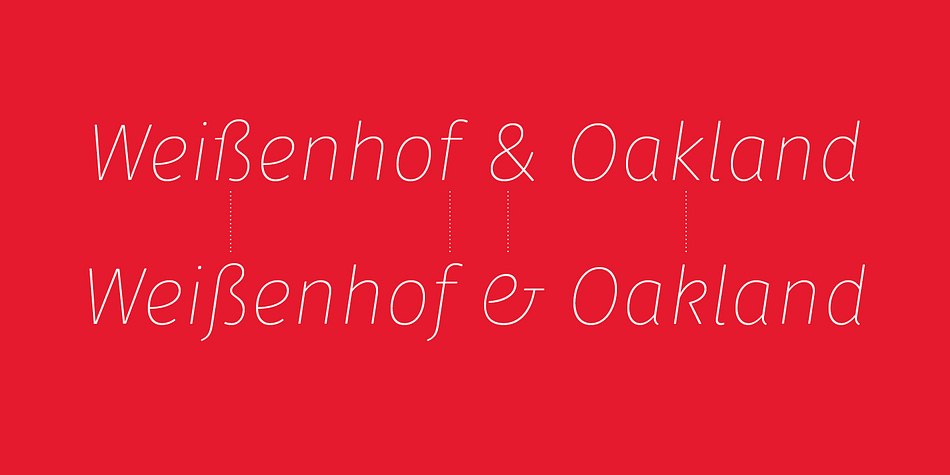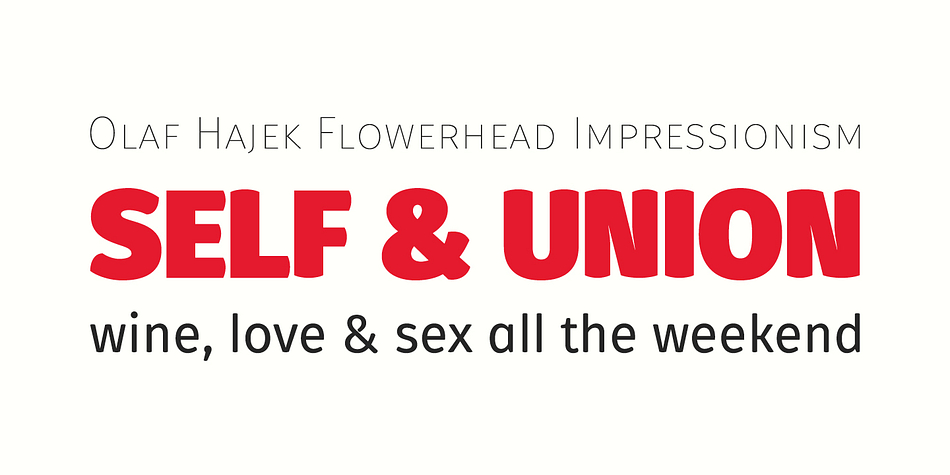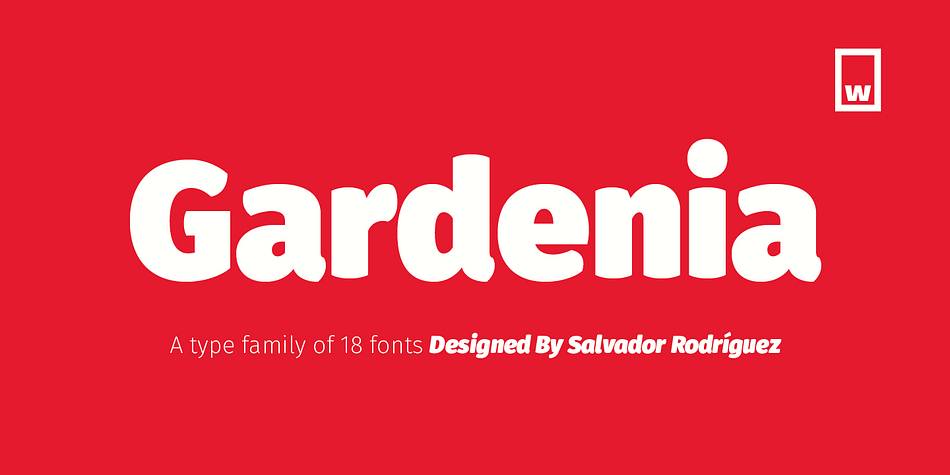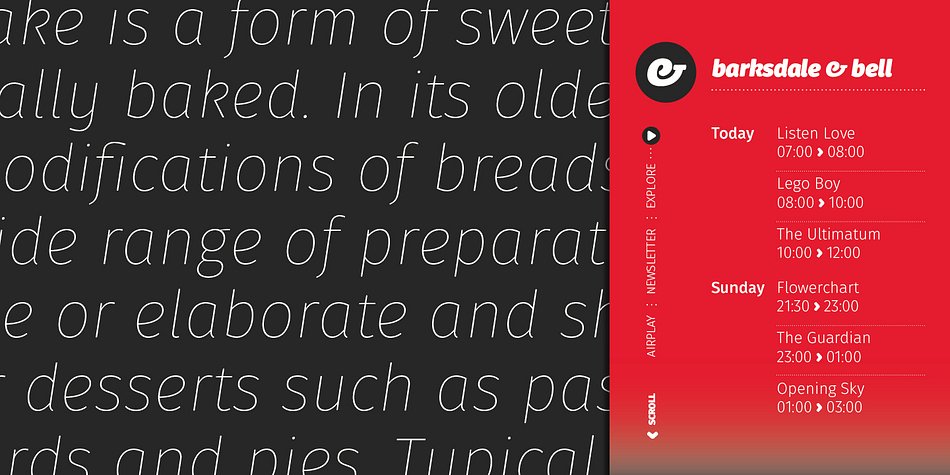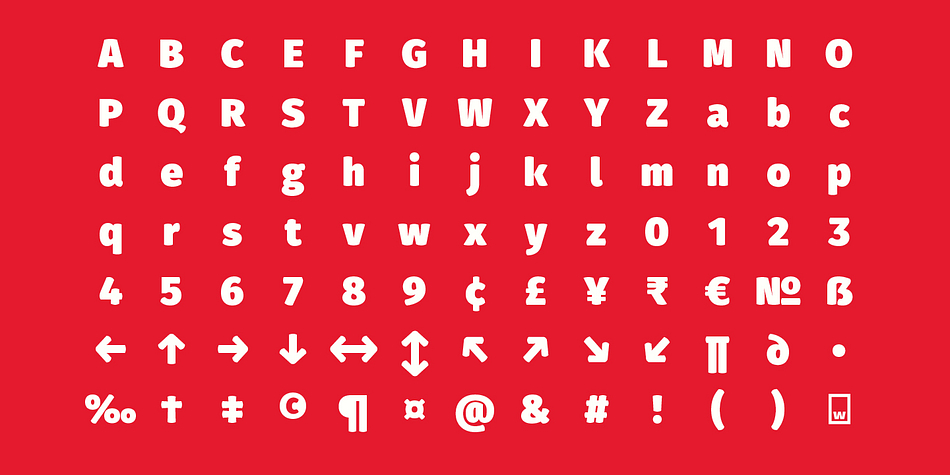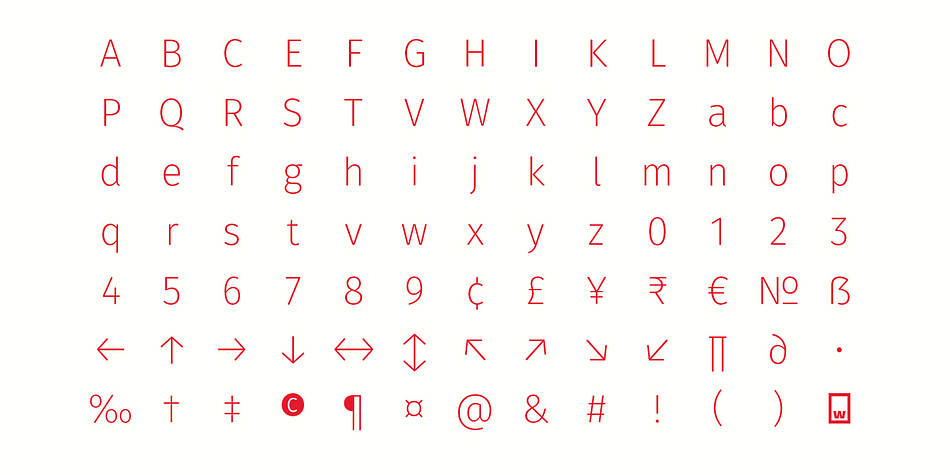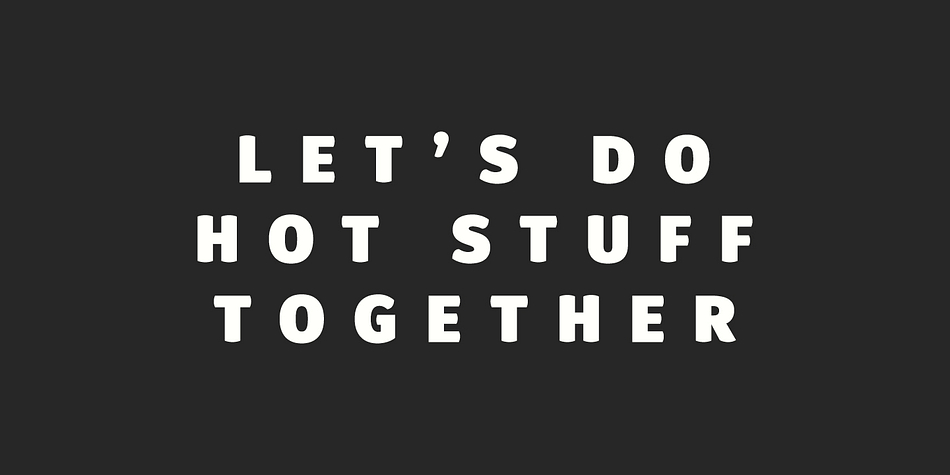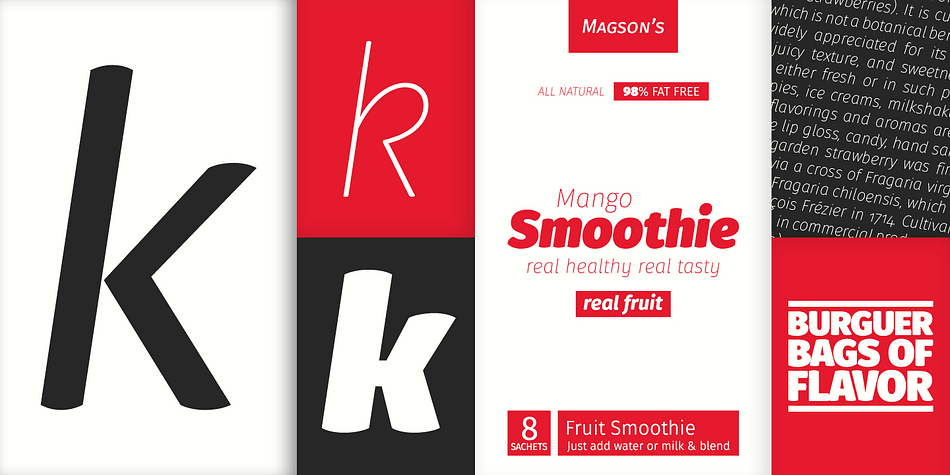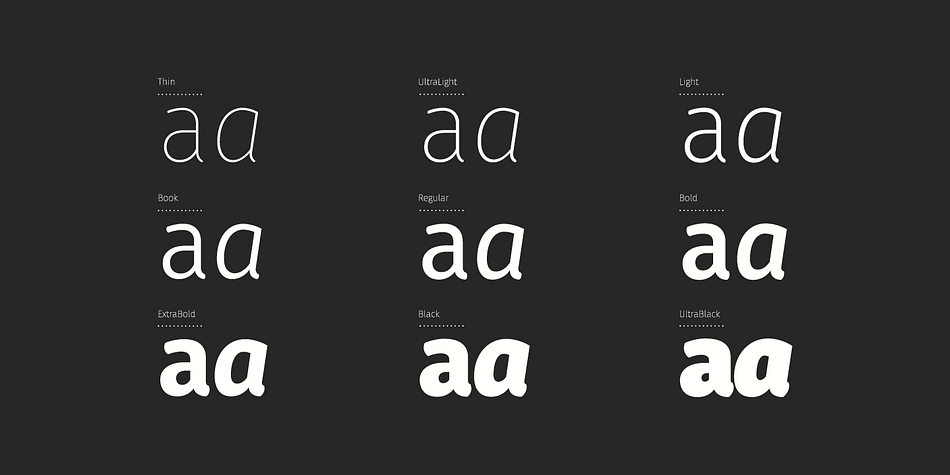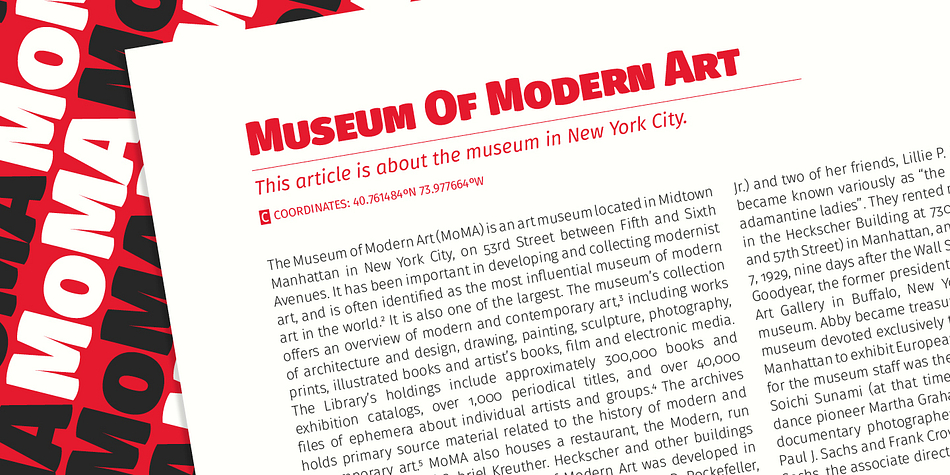
Designed by Salvador Rodríguez, Gardenia is a sans serif font family. This typeface has eighteen styles and was published by W Foundry.
Gardenia is a grotesk sans-serif. It comes in 9 weights with matching italics. It was designed by Salvador Rodríguez in 2015/2016. It is characterized by legibility in the medium sizes, black and thin weights are great performers in display sizes. Gardenia is well suited for longer texts and headlines. It’s perfect for graphic design, web, print, motion graphics, interaction design etc… Gardenia is equipped with a wide range of opentype features.